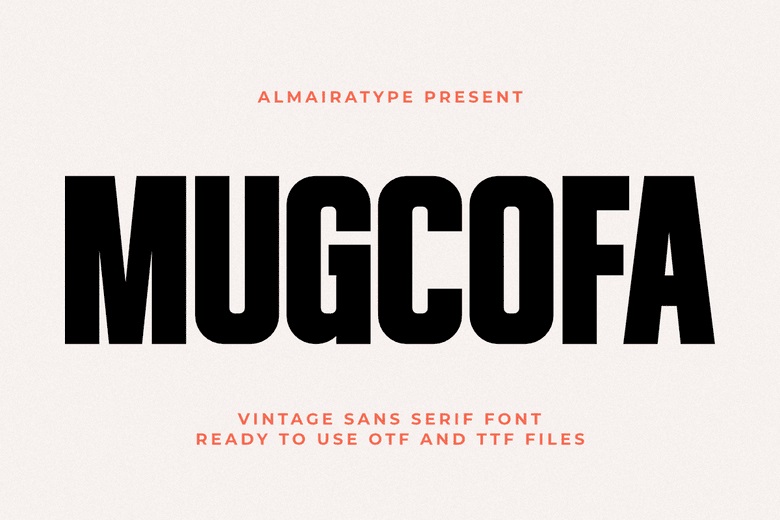
Mugcofa Font
Mugcofa is a vintage sans serif font that adds a warm, retro feel and a bold style to modern projects. It features a condensed shape, thick lines, and smooth, rounded edges.
This font is a great choice for graphic designers, clothing brands, custom apparel makers, craft lovers, and Print on Demand entrepreneurs who want their products to stand out. Use it for branding, t-shirt designs, packaging, or social media posters.
Mugcofa Sans Serif Font